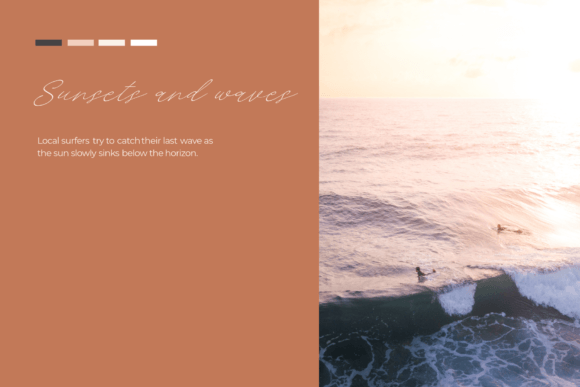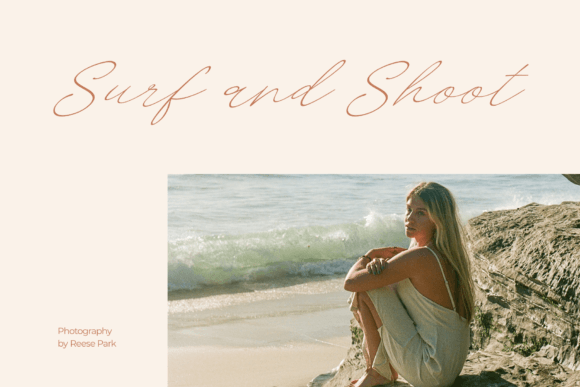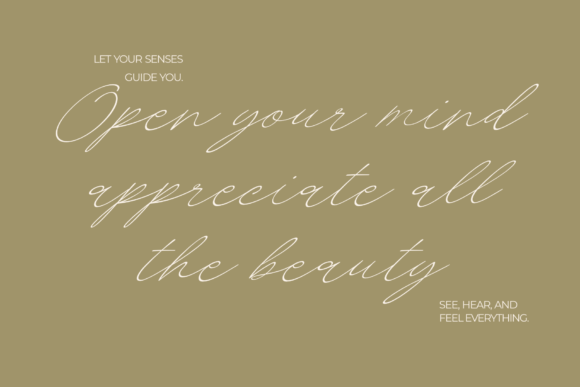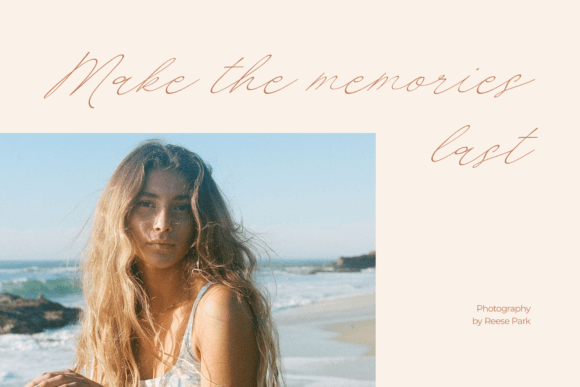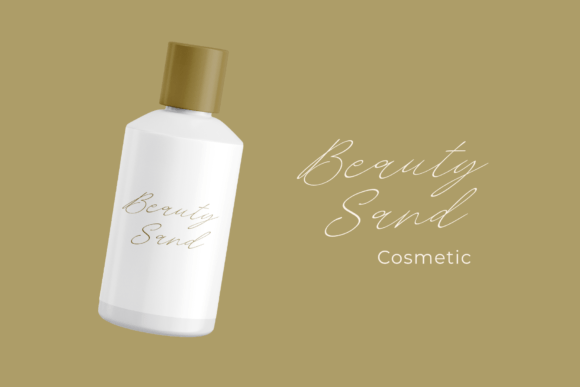
About Bigotedly Font
**Bigotedly Font: Casual Elegance for Chic Designs**
Bigotedly is a casual script font that exudes chic simplicity and charm. Its stylish curves make it an ideal choice for a wide range of design projects, adding a touch of casual elegance to your creations. Here are some fantastic ways to make the most of the Bigotedly font:
1. **Merchandise Design:** Create trendy and stylish merchandise, including apparel like T-shirts, hoodies, and caps, using the Bigotedly font for a chic and relaxed vibe.
2. **Branding:** Use Bigotedly for branding projects, especially for fashion and cosmetics brands. Its casual yet elegant appearance can help convey a sense of style and sophistication.
3. **Fashion Logos:** Design logos for fashion brands, boutiques, or clothing lines with Bigotedly to capture the essence of chic and simplicity.
4. **Cosmetics Packaging:** Apply the font to cosmetics packaging and labels to give your products a fashionable and modern look.
5. **Signature Logos:** Create unique and personalized signature logos for individuals or businesses, incorporating the Bigotedly font to add a touch of class.
6. **Wedding Invitations:** Craft elegant and stylish wedding invitations and stationery with Bigotedly, setting the tone for a chic and sophisticated event.
7. **Book Covers:** Use the font for book cover designs, particularly for contemporary romance, lifestyle, or fashion-themed books.
8. **Social Media Posts:** Enhance your social media posts, quotes, and captions with the Bigotedly font to create a trendy and eye-catching visual identity.
9. **Websites:** Apply the font to website headers, banners, and navigation menus for a modern and stylish online presence.
10. **Events:** Design event posters, flyers, and promotional materials for fashion shows, art exhibitions, or upscale gatherings with Bigotedly.
11. **Product Labels:** Customize product labels and packaging for artisanal or handcrafted goods to convey a sense of artisanal charm.
12. **Logo Design:** Create unique and contemporary logos for a variety of businesses and industries, infusing them with chic simplicity.
13. **Magazine Layouts:** Use the font for headlines, subheadings, and pull quotes in magazine layouts, especially for fashion, lifestyle, and beauty publications.
14. **Quotes and Posters:** Design inspirational posters, quote graphics, and wall art that exude casual elegance with the Bigotedly font.
15. **Greeting Cards:** Craft stylish and sophisticated greeting cards for various occasions, from birthdays to weddings, with this font.
Bigotedly’s versatility and simple charm make it a valuable addition to your font library, suitable for a broad spectrum of design needs. Whether you’re aiming for a chic and relaxed look or an elegant and stylish aesthetic, this font can help you achieve your design goals with flair and grace.